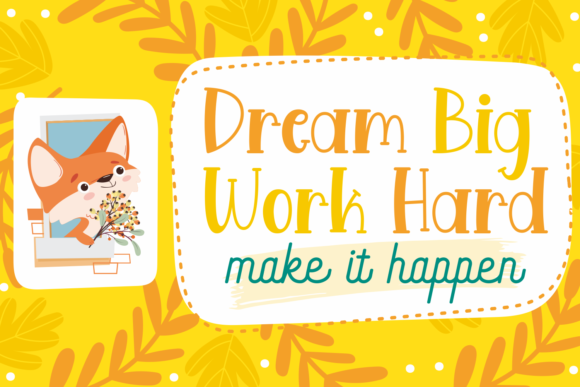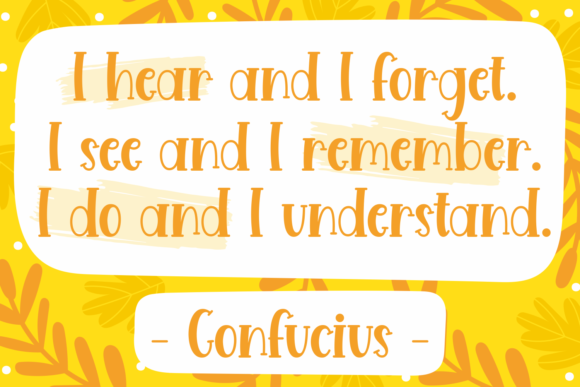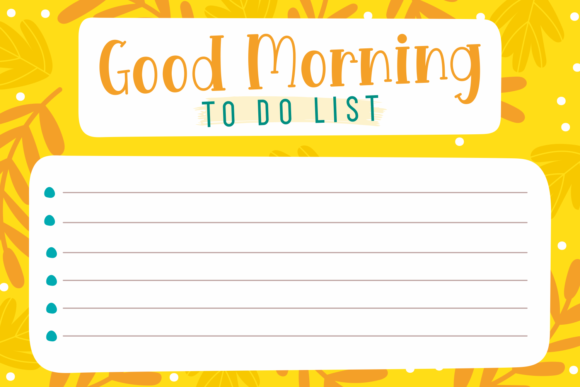
Introduction to Jucily Font
Jucily is a fun, trendy and joyful display font.
Genuine and featuring all round letters, this font will bring your projects to the highest levels .
Key Features of Jucily Font